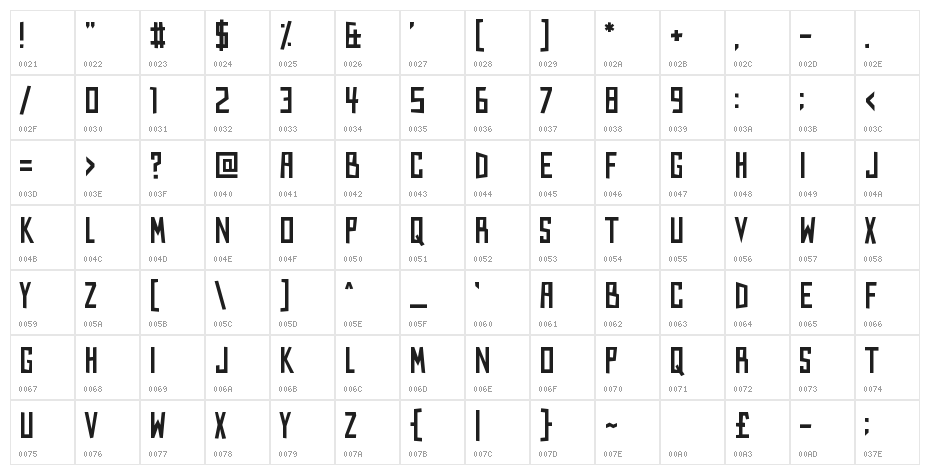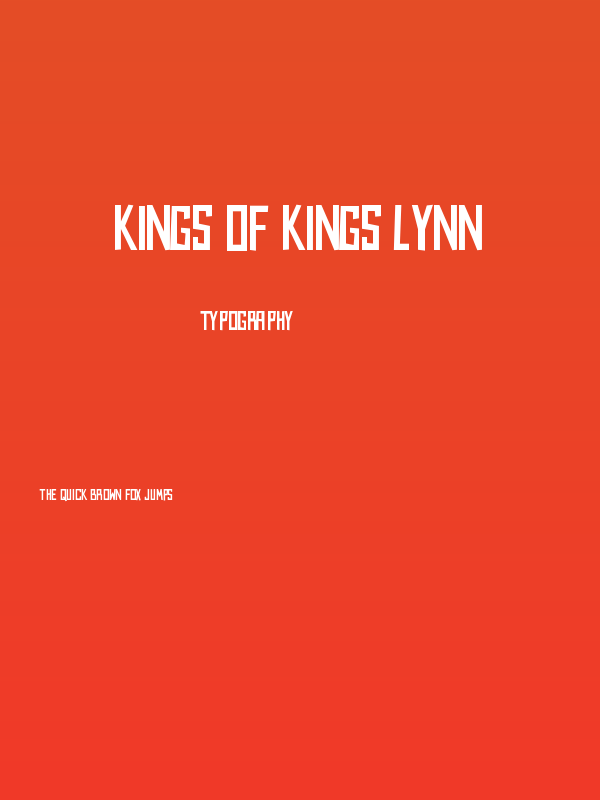
Kings of Kings Lynn Font
Kings of Kings Lynn Description
This font features a bold and angular design, characterized by its sharp edges and geometric forms. The uppercase letters are particularly striking, with a strong presence and a slightly condensed appearance. The numerals and special characters maintain the same boldness, ensuring consistency across all characters. The style is reminiscent of retro or vintage aesthetics, yet it carries a modern twist with its clean lines and structured form. This font is ideal for projects that require a strong visual impact, such as posters, headlines, or branding materials. Its unique style makes it stand out, offering a distinctive look that draws attention.
| Overall Style | Retro-Modern |
| Proposed Projects | Ideal for posters, headlines, branding, and any project needing a strong visual impact. |